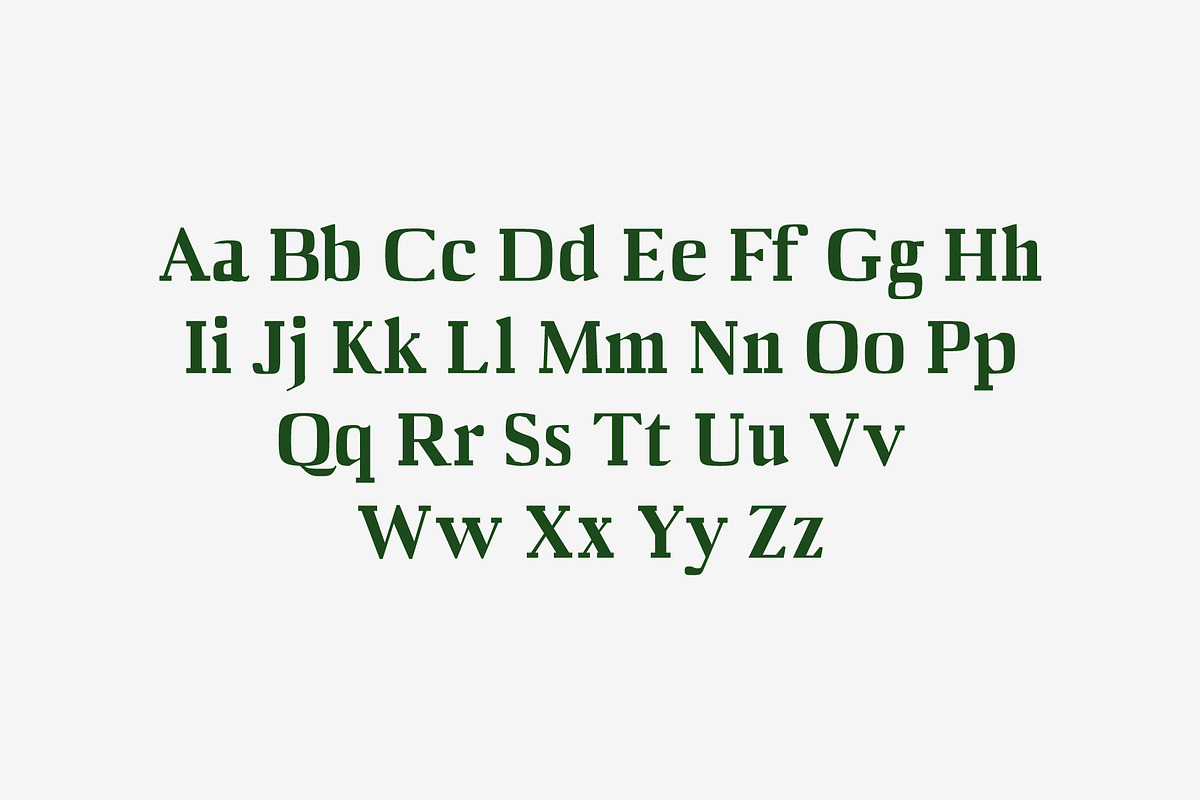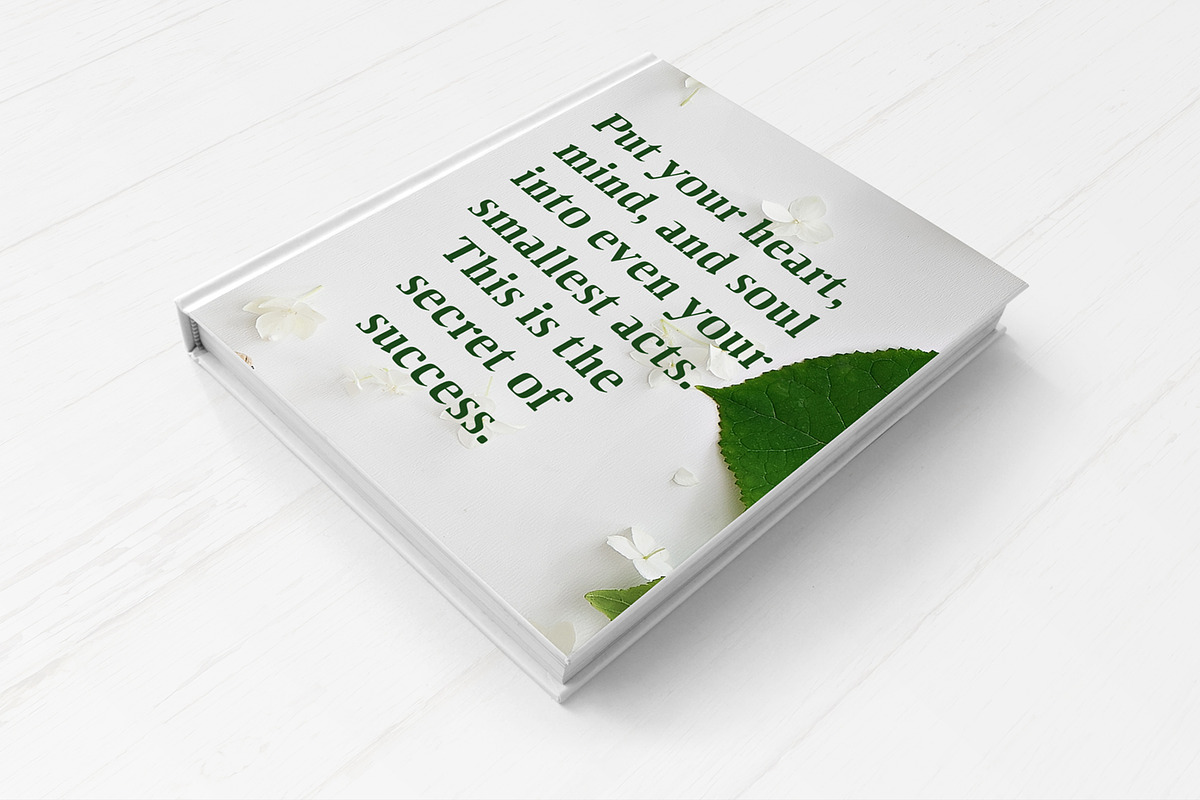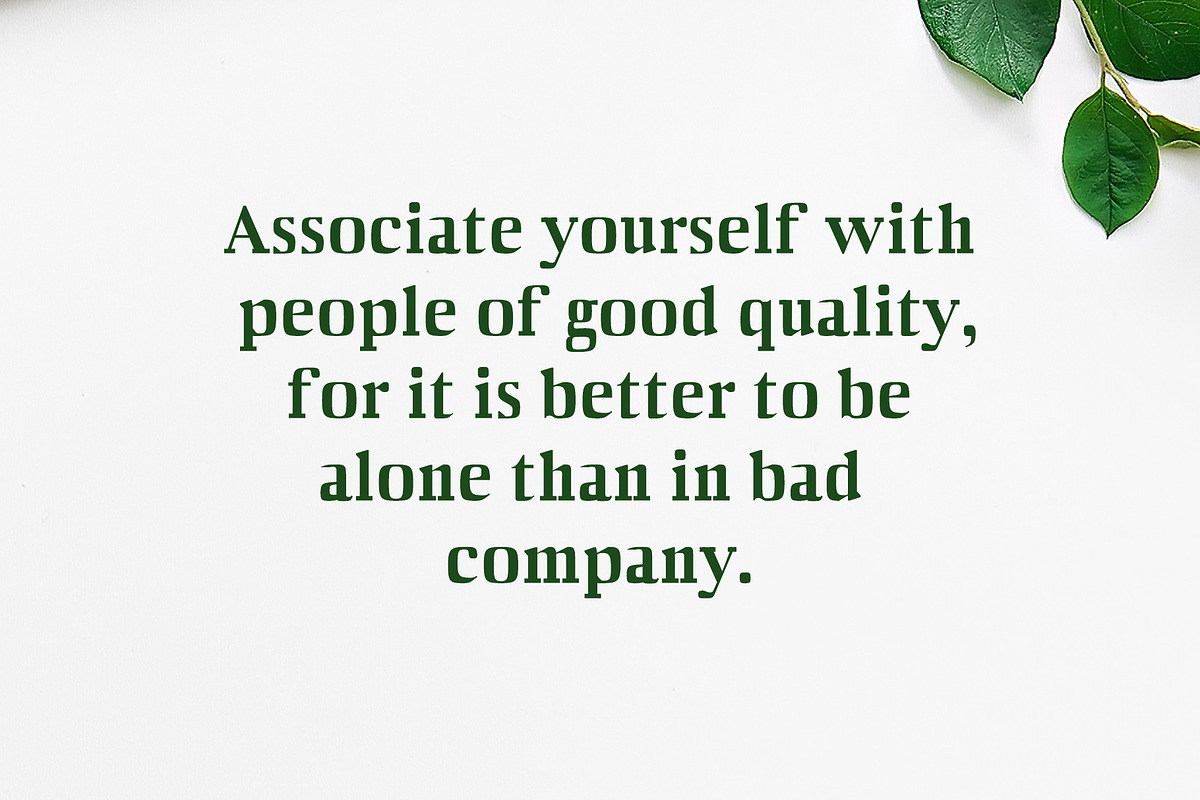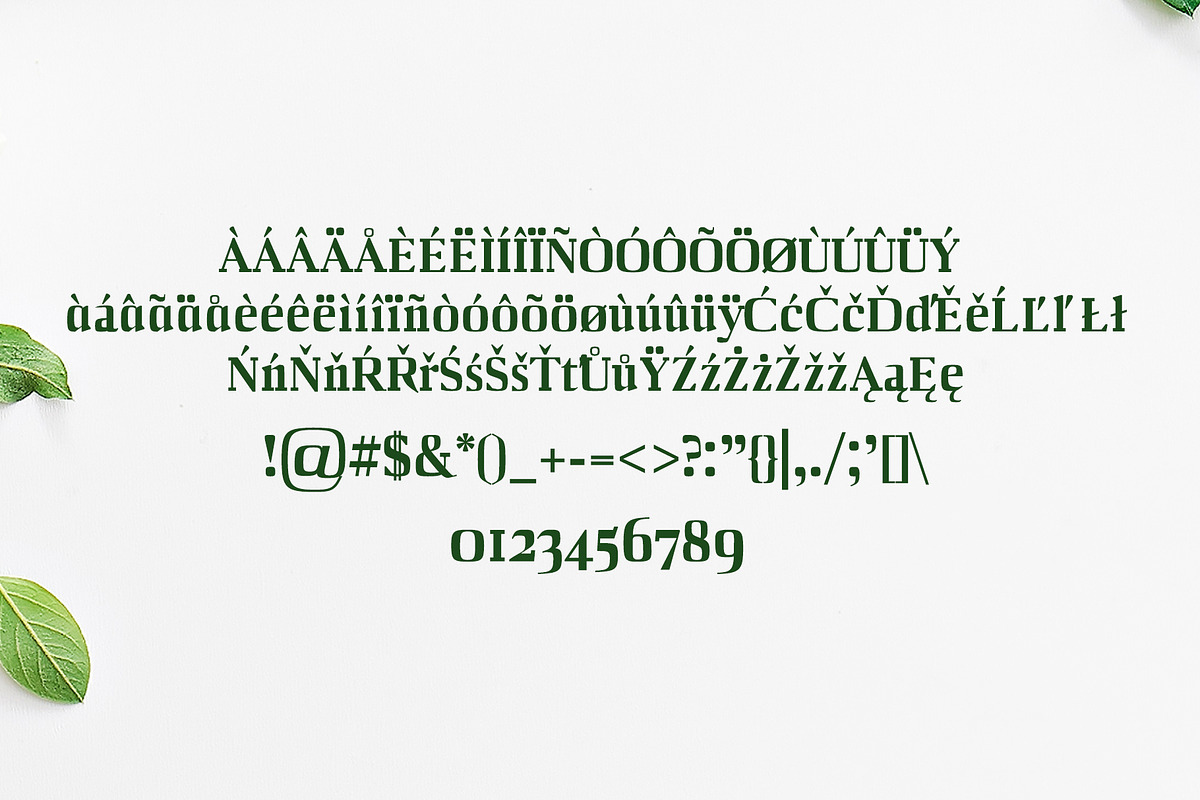
Barnes Serif 7 Font Family Pack
Barnes Serif 7 Font Family Pack by Creativetacos is a font selected for branding, posters, packaging, typography.
- Uppercase Multilingual Letters
- Lowercase Multilingual Letters
- Numbers & Punctuation
- Non English Characters ( Latin Supplement + Latin Extended A)
- Barnes Thin
- Barnes Thin Italic
- Barnes Light
- Barnes Light Italic
- Barnes Regular
- Barnes Black
- Barnes Black Italic
Why Barnes Serif 7 Font Family Pack is worth a look
Barnes Serif 7 Font Family Pack by Creativetacos fits naturally into Branding, posters, packaging, typography.